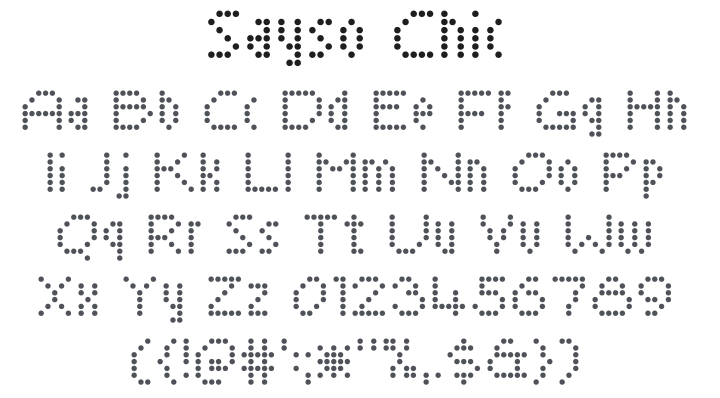
Sayso Chic Font
About Sayso Chic
Sayso Chic is a dotted LED display typeface designed to mimic the look of a portable LED scrolling sign — each letterform is built from evenly spaced round dots arranged in a grid, giving it that warm, glowing dot-matrix readout quality. Its clean, friendly character feels retro-digital without being cold. Perfect for digital signage aesthetics, retro electronics designs, score displays, tech-themed branding, and any project channeling the nostalgic charm of LED message boards.